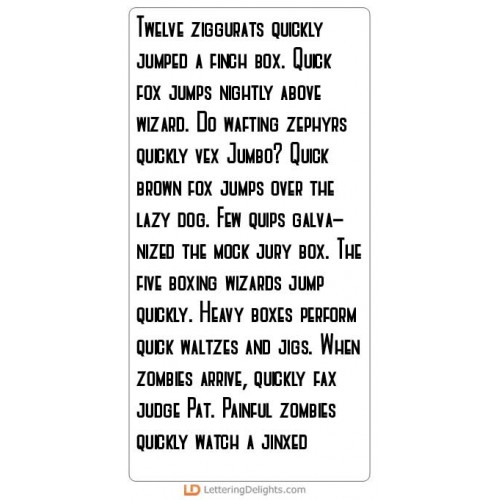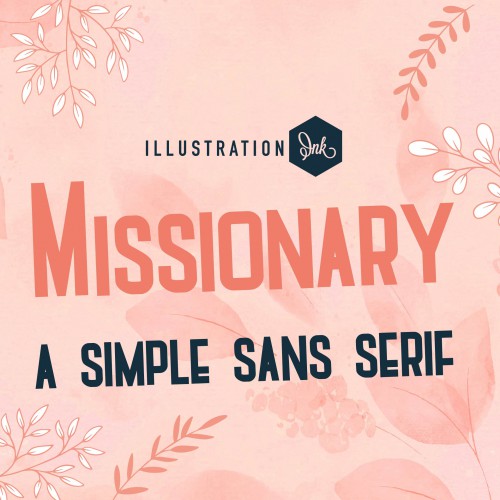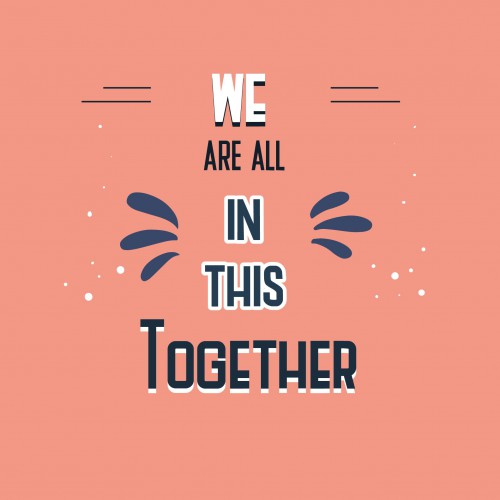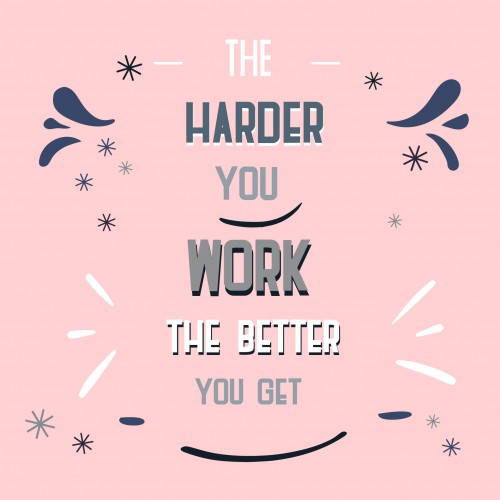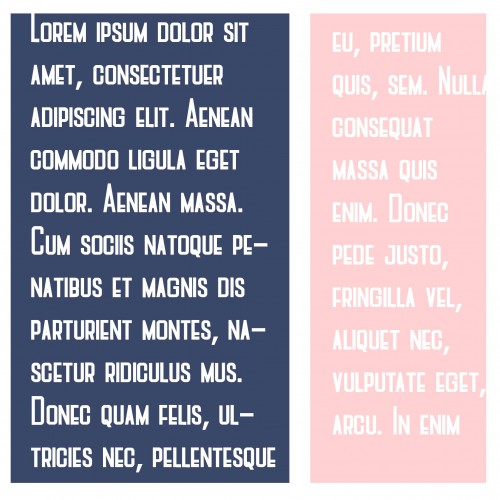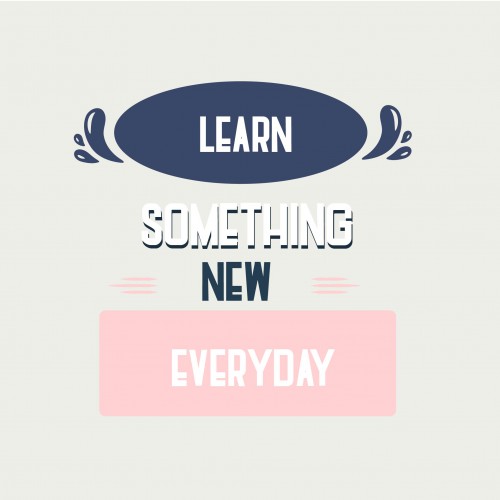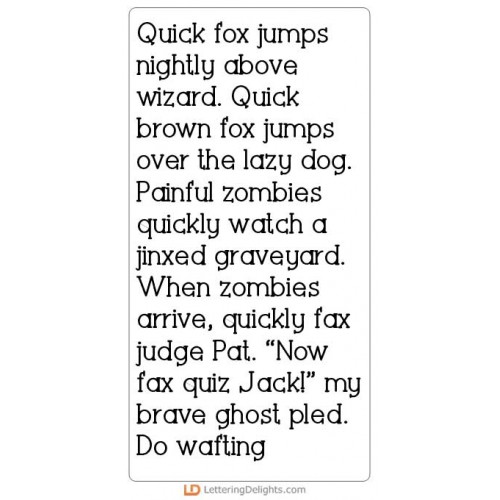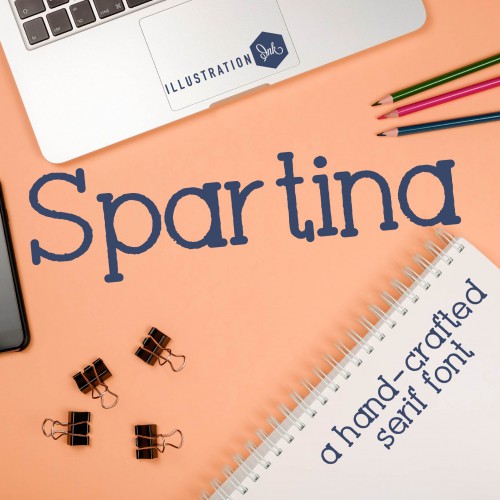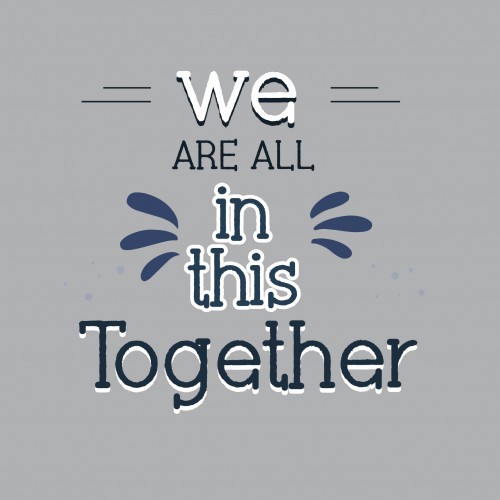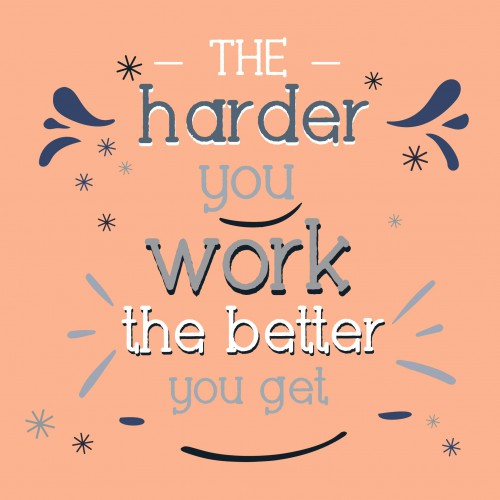
Heartbeat Gang - Big Bundle
This whimsical collection features adorable Valentine themed imagery and emojis perfect for cards, crafts, gifts, planner stickers, scrapbook pages and more!
PN Missionary - Bold - FN
This sans serif is very square and boxy and bold...
PN Spartina Light - FN
This hand-crafted serif is incredibly textured and a bit crafty...
PN Spartina - FN
This hand-crafted serif is incredibly textured and a bit crafty...
ZP Blinker - FN
This adorable hand-written script has a bouncy baseline and print-like uppercase...
ZP Blinker Light - FN
This adorable hand-written script has a bouncy baseline and print-like uppercase...
ZP Blinker Bold - FN
This adorable hand-written script has a bouncy baseline and print-like uppercase...
DB Heartbeat Gang - DB
This whimsical doodlebat font features 26 adorable Valentine themed imagery perfect for cards, craft..
DB Heartbeat- Emojis - DB
This whimsical doodlebat font features 26 adorable Valentine emojis perfect for cards, crafts, gifts..
Heartbeat Gang - GS
This whimsical graphic set features 26 adorable Valentine themed imagery perfect for cards, crafts, ..
Heartbeat Gang - CS
This whimsical cuttable graphic set features 26 adorable Valentine themed imagery perfect for cards,..
Heartbeat Gang - Emojis - GS
This whimsical graphic set features 26 adorable Valentine emojis perfect for cards, crafts, gifts, p..
Heartbeat Gang - Emojis - CS
This whimsical cuttable graphic set features 26 adorable Valentine emojis perfect for cards, crafts,..
Heartbeat Gang - CP
This whimsical cut project set features heart gift boxes, perfect for Valentine's day...
Heartbeat Gang - PP
This whimsical paper pack coordinates with Heartbeat Gang Collection..
Heartbeat Gang - AL
This whimsical alphabet coordinates with Heartbeat Gang Collection..